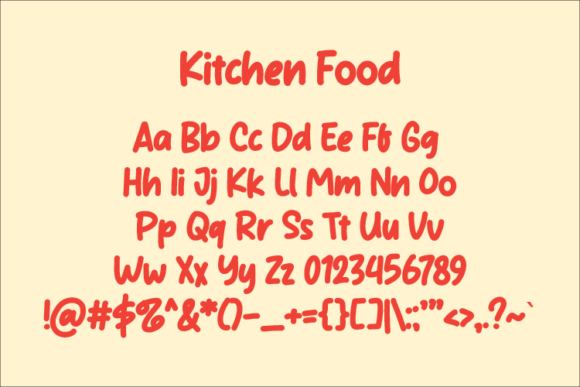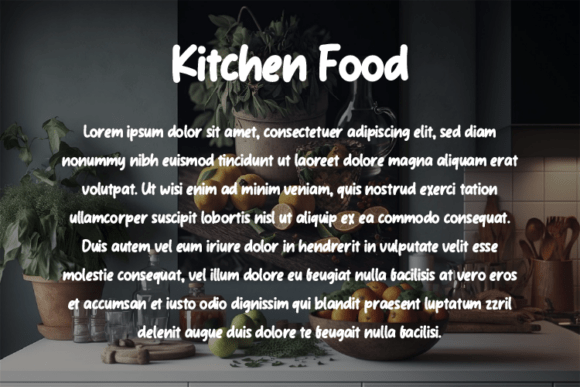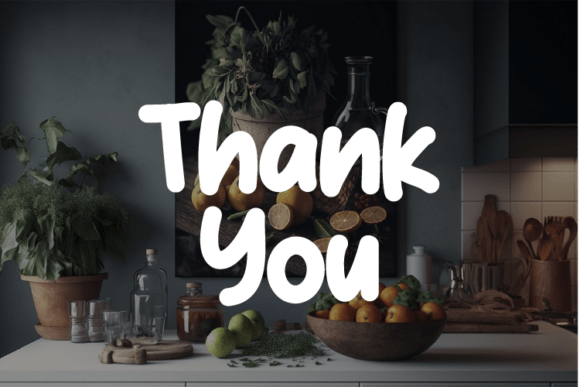
Introduction to Kitchen Food Font
Kitchen Food is a modern and elegant typeface designed for flexibility and excellent readability across a wide range of media.
Key Features of Kitchen Food Font
Why Choose Kitchen Food Font?
Kitchen Food Font offers exceptional quality and versatility, making it a valuable addition to your design toolkit. Whether you’re creating for personal projects or commercial use, Kitchen Food Font delivers professional results.